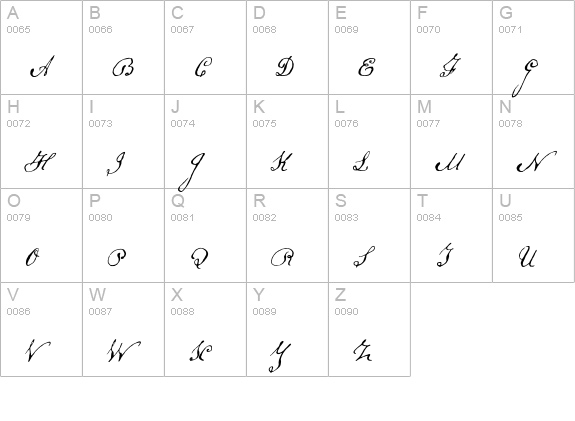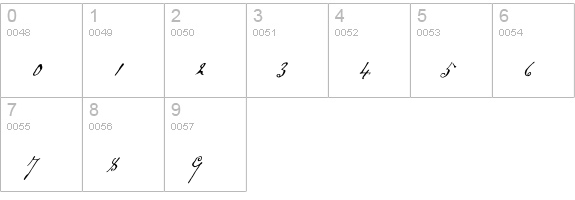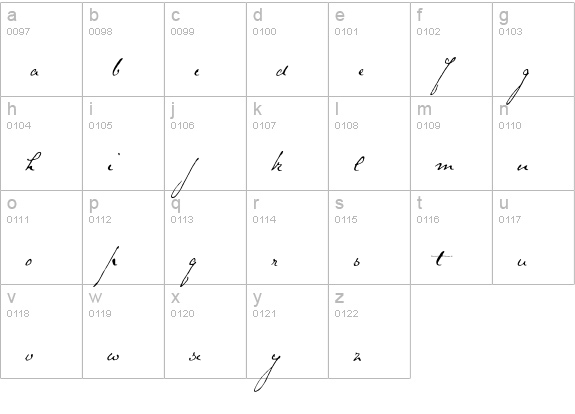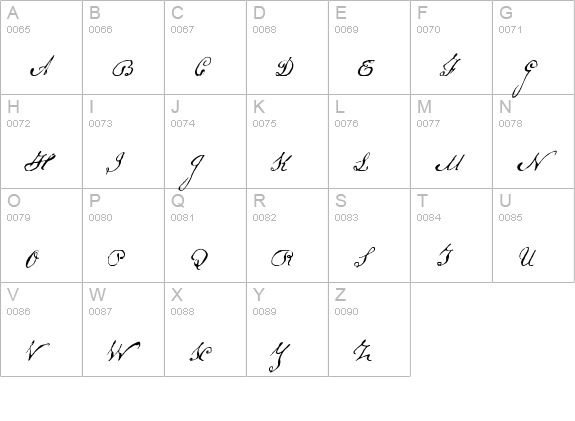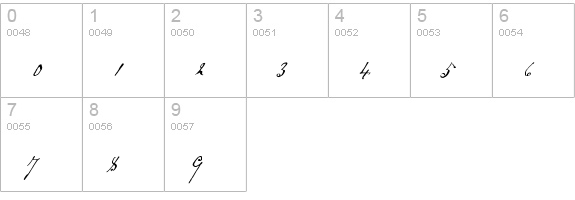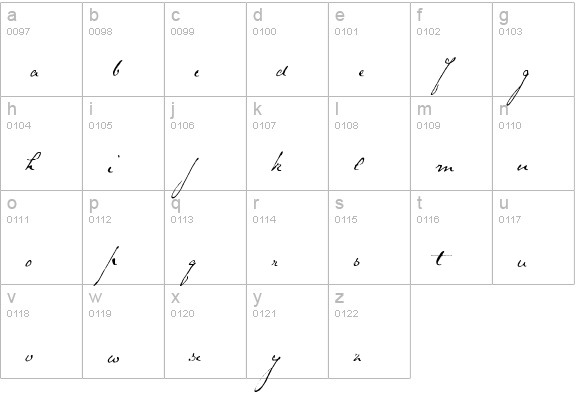
SchoonerScript Font Details
SchoonerScript is a beautifully crafted and versatile font that exudes elegance and grace. With its flowing cursive strokes and intricate details, this font is perfect for adding a touch of sophistication to any project. Whether you're designing wedding invitations, creating a logo for a high-end brand, or simply looking to add a touch of class to your personal blog, SchoonerScript is the ideal choice. One of the best things about SchoonerScript is that it is completely free. Yes, you read that right – this stunning font is available to download for free at FontsMarket.com. Now you can bring a touch of luxury to your designs without breaking the bank. Whether you're a professional designer or a hobbyist, SchoonerScript is the perfect addition to your font collection. With its wide range of alternates and ligatures, SchoonerScript offers endless possibilities for creativity. Each letter has been carefully designed to flow seamlessly into the next, creating a natural and organic appearance. The result is a font that is not only visually stunning but also incredibly easy to read. SchoonerScript is a font that truly stands out from the crowd. Its unique and timeless design will ensure that your projects are memorable and eye-catching. So why wait? Head over to FontsMarket.com today and download SchoonerScript for free. Elevate your designs and let your creativity shine with this exceptional font.